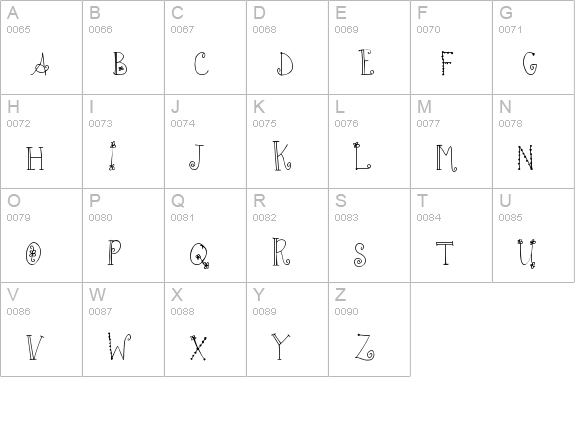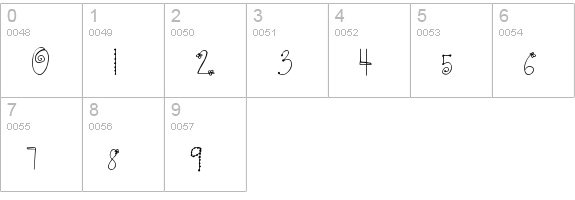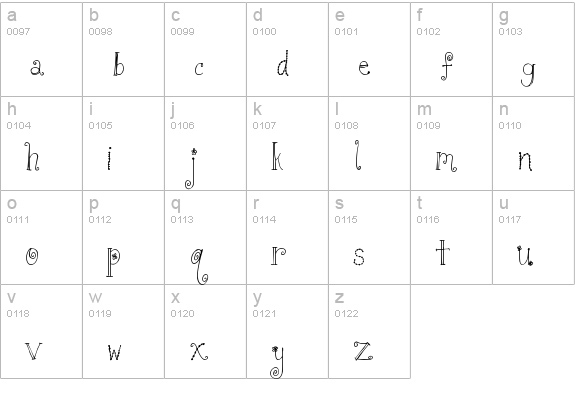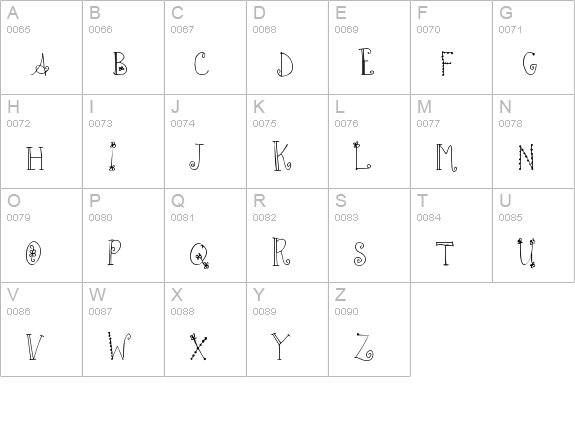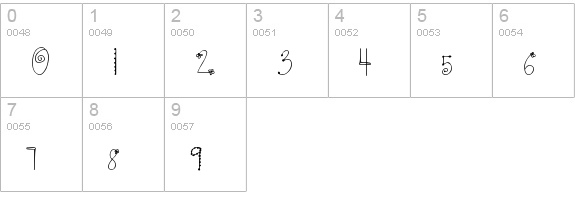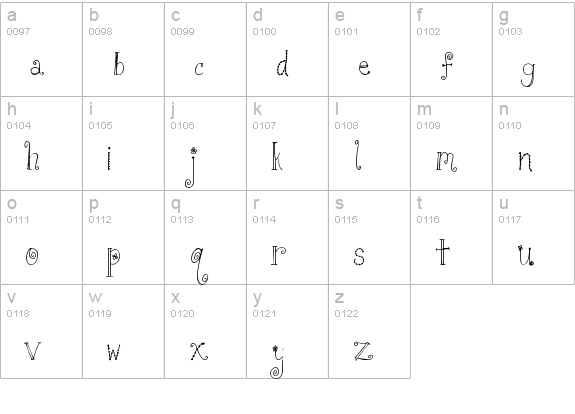
Introducing Tuna and Hot Dogs on Rye font - a quirky and playful typeface that is sure to add a touch of fun to your design projects. This unique font combines the sleekness of Tuna with the boldness of Hot Dogs on Rye, resulting in a truly eye-catching and versatile font. Whether you're working on a poster, logo, or website design, Tuna and Hot Dogs on Rye font is the perfect choice to make your text stand out. What's even better is that this font is available for free download at FontsMarket.com. Yes, you read that right - you can get your hands on this fantastic font without spending a dime. So why wait? Add Tuna and Hot Dogs on Rye font to your collection today and let your creativity soar.